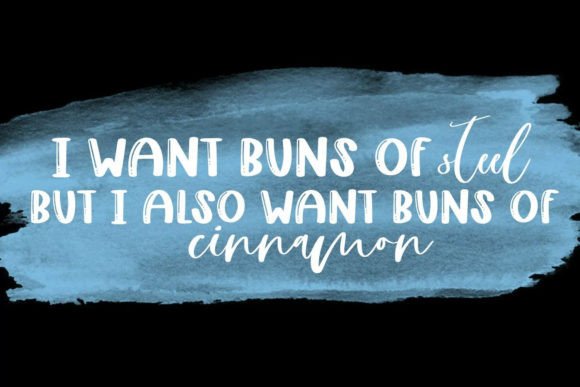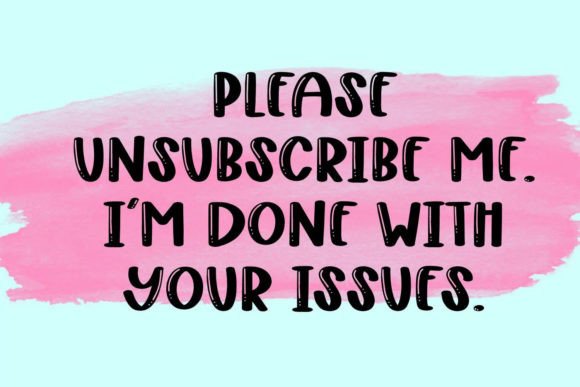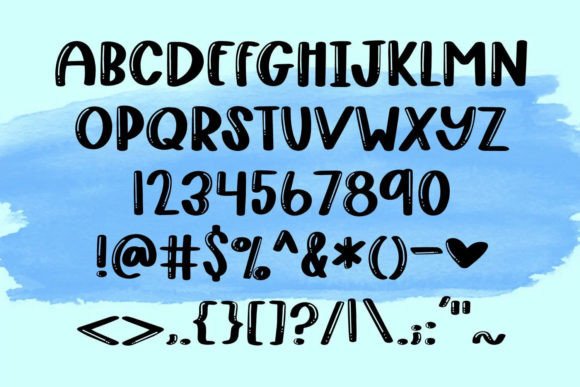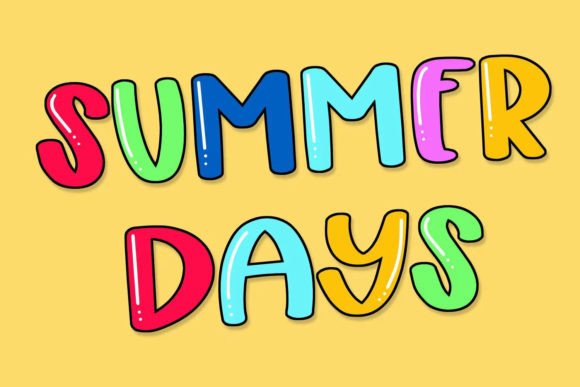
Introducing Boat Waves Font: The Fun and Shiny Handwritten Display Font
Are you looking for a font that adds a touch of playfulness and sophistication to your designs? Look no further than Boat Waves Font! This fun and shiny handwritten display font is perfect for designers and crafters who want to make their projects stand out. In this article, we’ll dive into the features and benefits of Boat Waves Font, and explore how you can use it to take your designs to the next level.
What is Boat Waves Font?
Boat Waves Font is a unique and eye-catching handwritten display font that features an all-caps style with shiny lines. The font has been carefully crafted to give it a fun and playful feel, making it perfect for projects that require a touch of whimsy. The shiny lines add a level of sophistication and elegance, making it suitable for a wide range of applications.
Key Features of Boat Waves Font
- All-caps style: Boat Waves Font features an all-caps style that’s perfect for headlines, titles, and other display text.
- Shiny lines: The font’s shiny lines add a touch of sophistication and elegance to your designs.
- Optimized nodes for cutting: The font has been optimized for cutting, making it perfect for crafters and designers who work with cutting machines.
- Versatile: Boat Waves Font can be used for a wide range of projects, from decals and stickers to designs, water bottles, and more.
Benefits of Using Boat Waves Font
So why should you choose Boat Waves Font for your next project? Here are just a few benefits of using this amazing font:
- Adds a touch of playfulness: Boat Waves Font adds a touch of playfulness and whimsy to your designs, making them more engaging and eye-catching.
- Perfect for crafts and DIY projects: The font’s optimized nodes for cutting make it perfect for crafters and DIY enthusiasts who work with cutting machines.
- Increases brand visibility: The unique and eye-catching design of Boat Waves Font can help increase brand visibility and make your designs stand out from the crowd.
How to Use Boat Waves Font
Using Boat Waves Font is easy! Here are a few ways you can incorporate it into your next project:
- Decals and stickers: Use Boat Waves Font to create eye-catching decals and stickers for laptops, water bottles, and more.
- Designs and graphics: Add a touch of playfulness to your designs and graphics with Boat Waves Font.
- Water bottles and tumblers: Use Boat Waves Font to create custom water bottles and tumblers that make a statement.
- Crafts and DIY projects: Boat Waves Font is perfect for crafters and DIY enthusiasts who work with cutting machines.
In conclusion, Boat Waves Font is a fun and shiny handwritten display font that’s perfect for designers and crafters who want to add a touch of playfulness and sophistication to their projects. With its all-caps style, shiny lines, and optimized nodes for cutting, Boat Waves Font is versatile and easy to use. Whether you’re working on decals, stickers, designs, water bottles, or crafts, Boat Waves Font is sure to make your projects stand out. Try it out today and see the difference it can make!